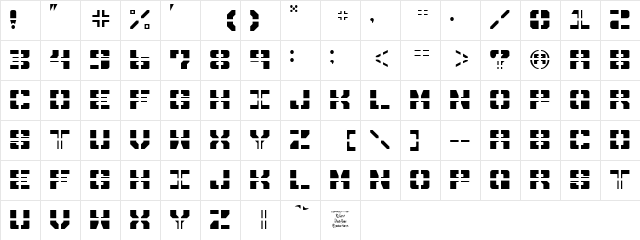
Complete Drawn and Quartered Regular glyph index. Displaying only characters natively supported by Drawn and Quartered Regular font.
Drawn and Quartered is a composed and adaptable typeface that performs quietly and consistently across a wide range of design contexts.